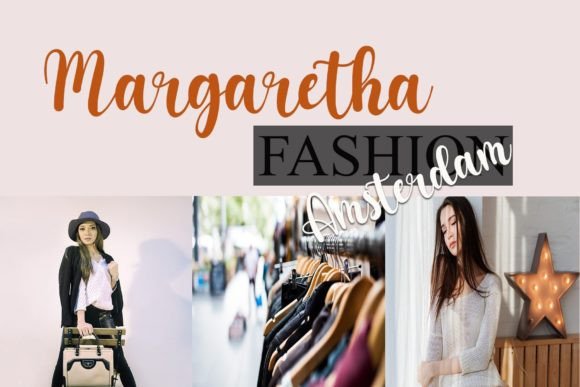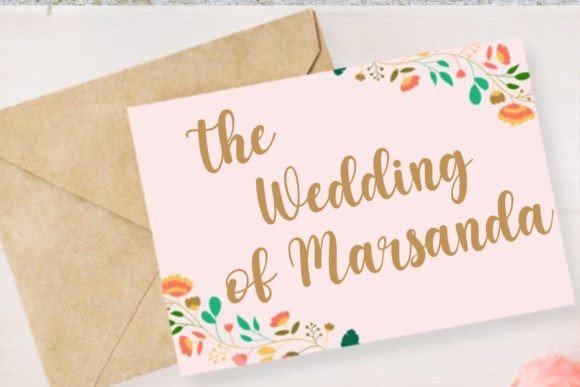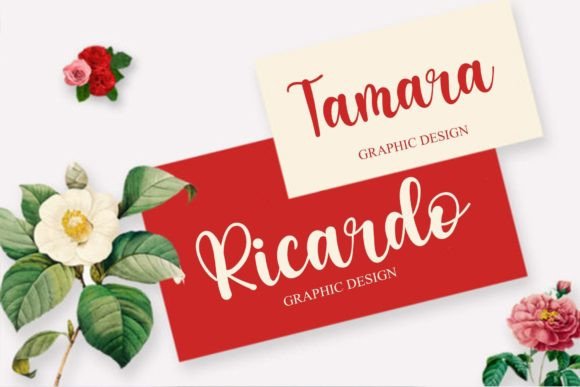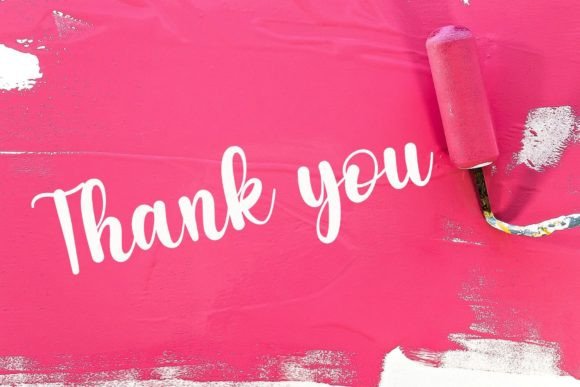
History Font
About History Font
History, an elegant handwritten font, emanates a contemporary ambiance while embodying impeccable form, drawing inspiration from the timeless allure of classic calligraphy. With a balance and variety that define its essence, this font has been meticulously crafted to elevate the aesthetic appeal of your projects.
The stylistic elements of History are a testament to the marriage of tradition and modernity. Rooted in the classic artistry of calligraphy, this font is a nod to the enduring beauty found in ageless writing styles. Each stroke is carefully curated, reflecting a sense of craftsmanship that adds a touch of sophistication to the overall design.
The versatility of History becomes apparent as it seamlessly integrates into various projects, enhancing their visual appeal. Whether used for formal invitations, creative displays, or any design endeavor, this font brings a timeless and refined quality to the forefront. Its contemporary atmosphere ensures that it not only respects tradition but also resonates with the aesthetics of the present.
The impeccable form of History is a result of thoughtful design choices. The characters are harmoniously balanced, creating a visual rhythm that is pleasing to the eye. This balance ensures that the font maintains readability while exuding a sense of artistry. The varied strokes and curves add an element of dynamism, making History a font that captures attention and leaves a lasting impression.
In essence, History is more than just a font; it’s a design tool that breathes life into your projects. Its handwritten charm, coupled with a contemporary twist, creates a unique synergy that is both classic and current. Whether you’re aiming for a formal, timeless look or seeking to infuse a touch of modernity into your designs, History stands ready to enhance the beauty of your creative endeavors.